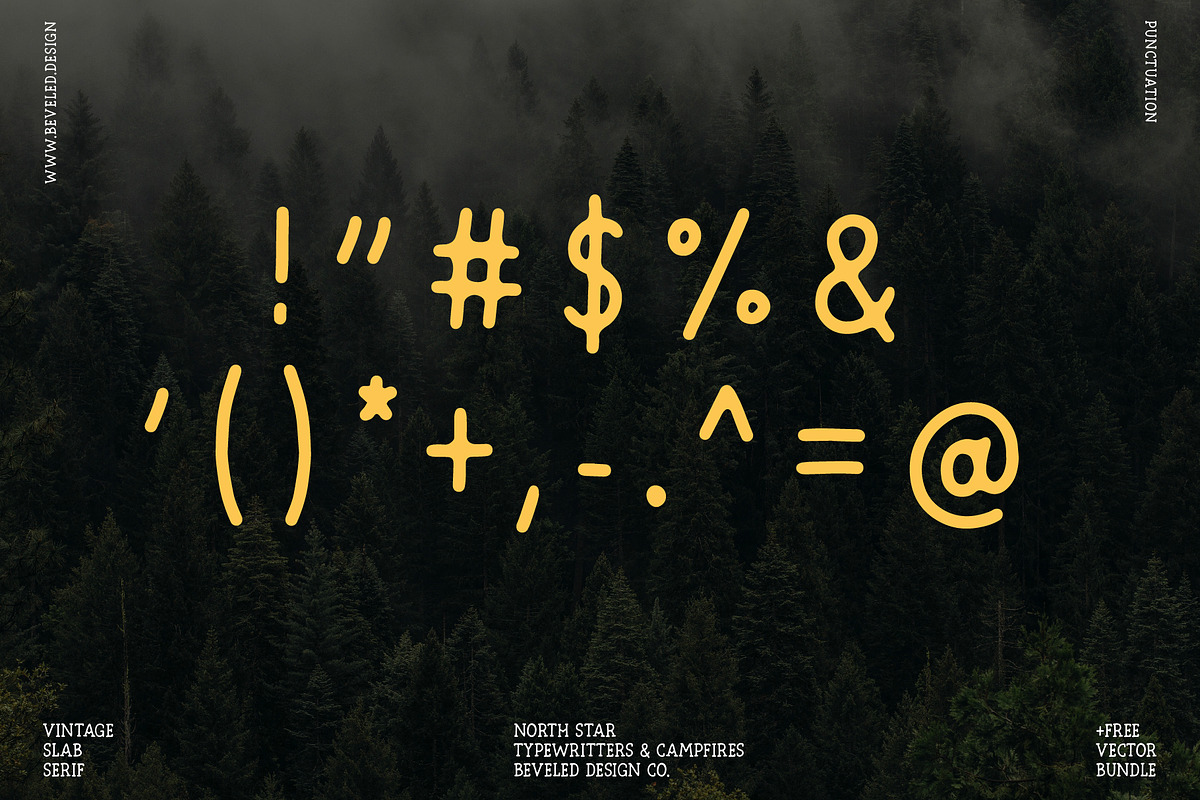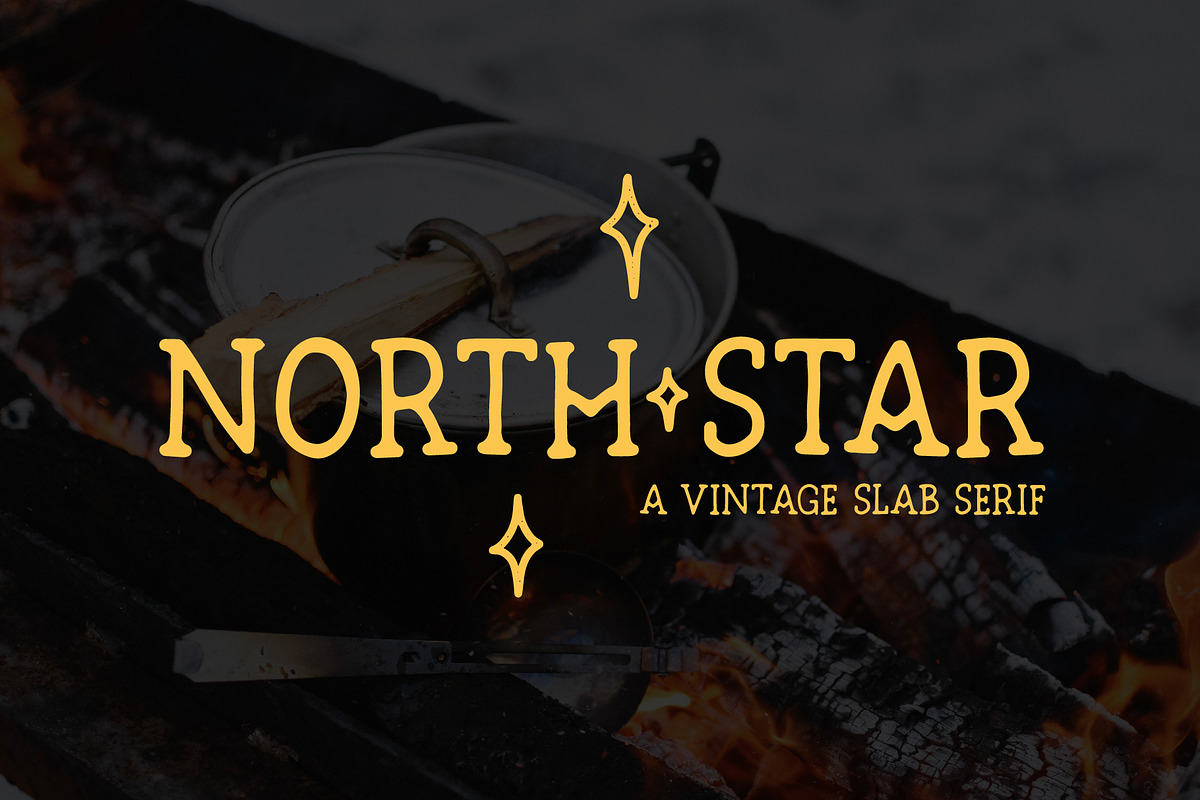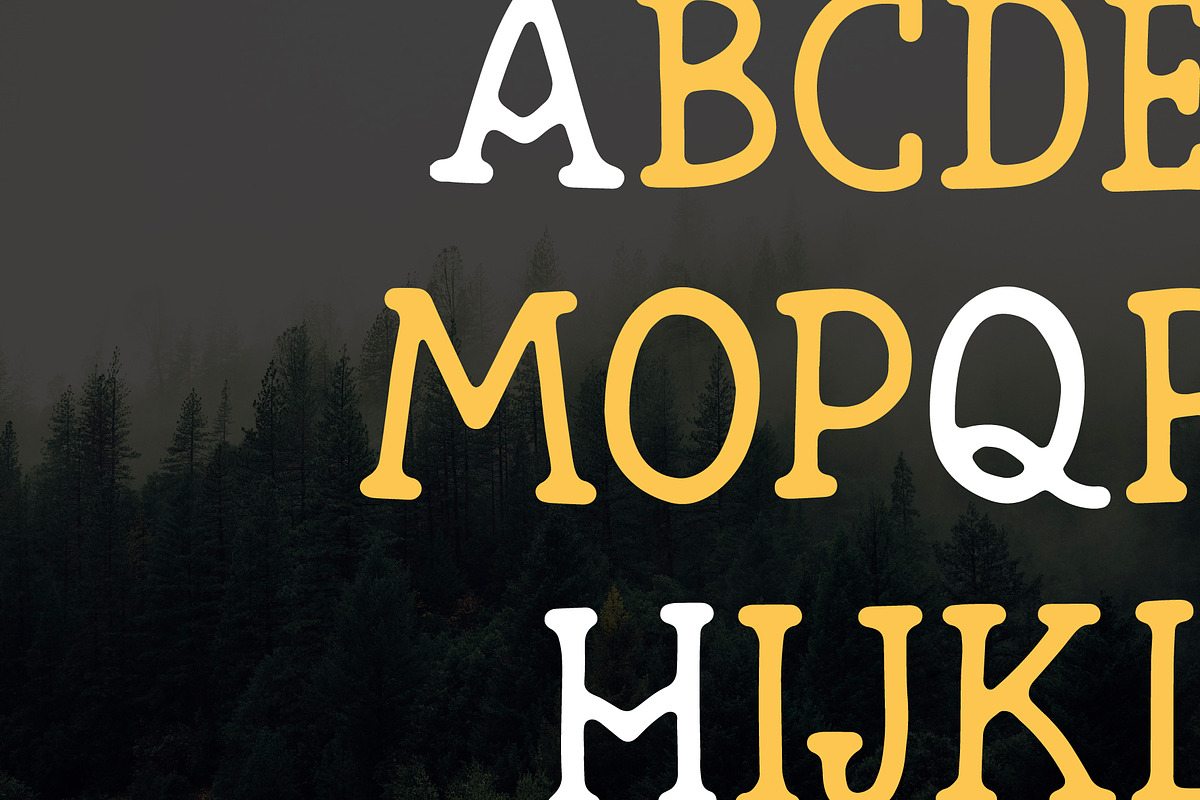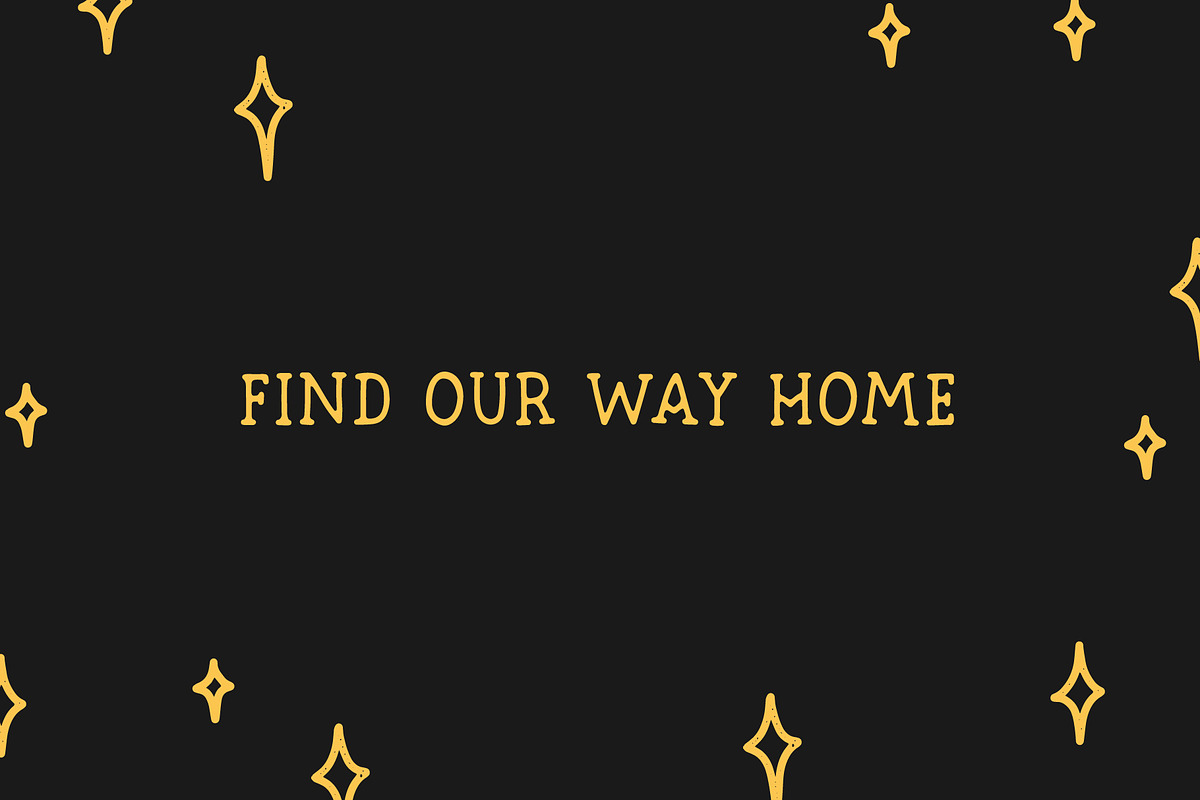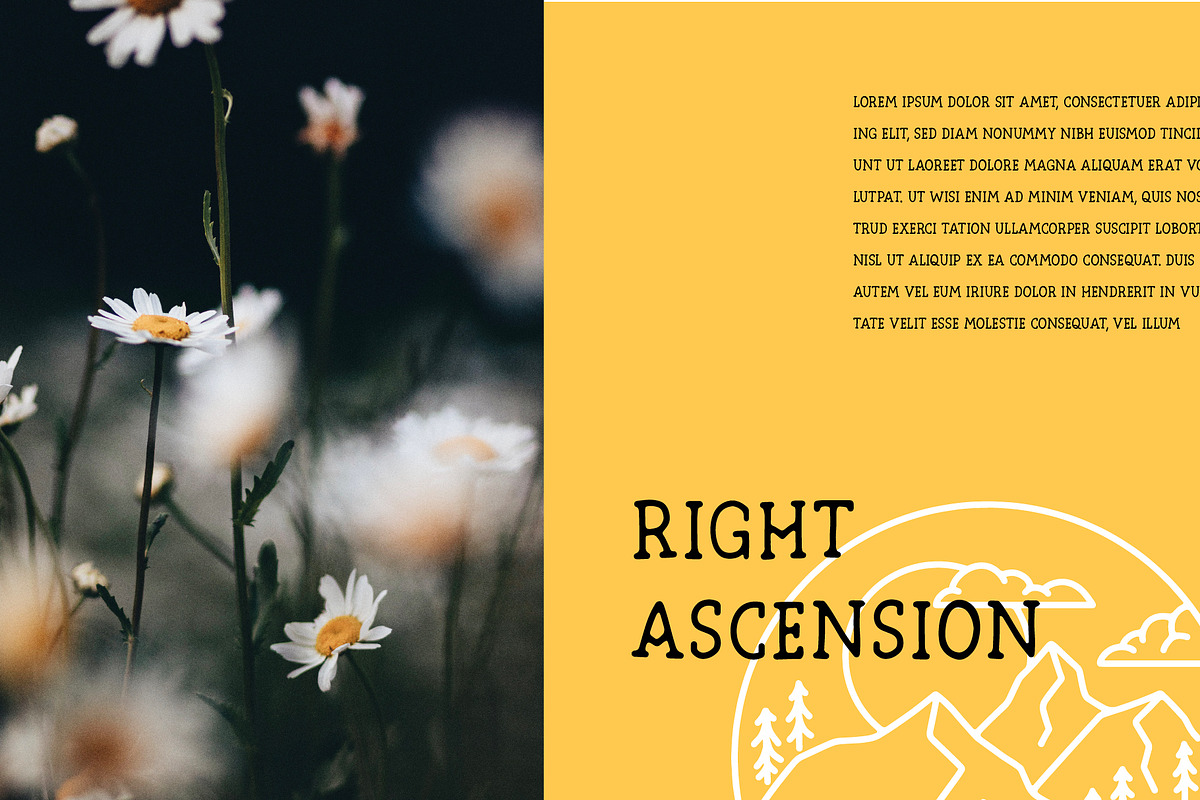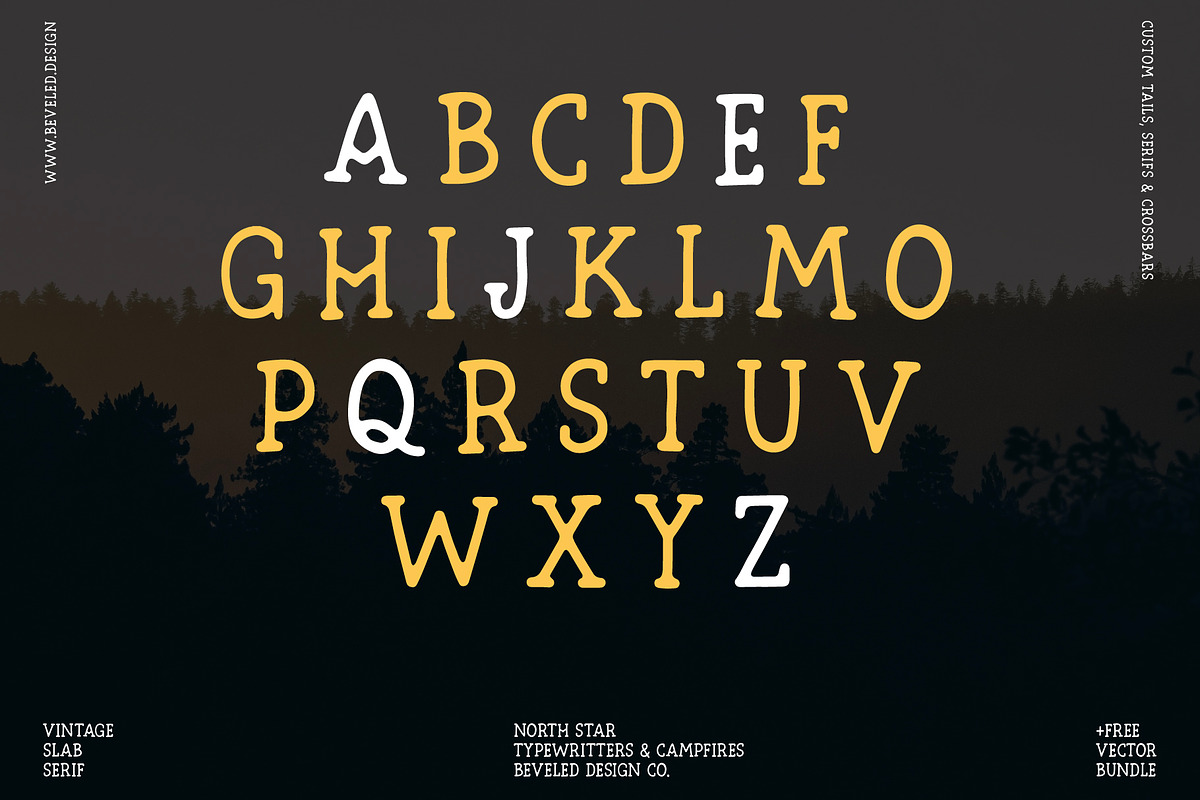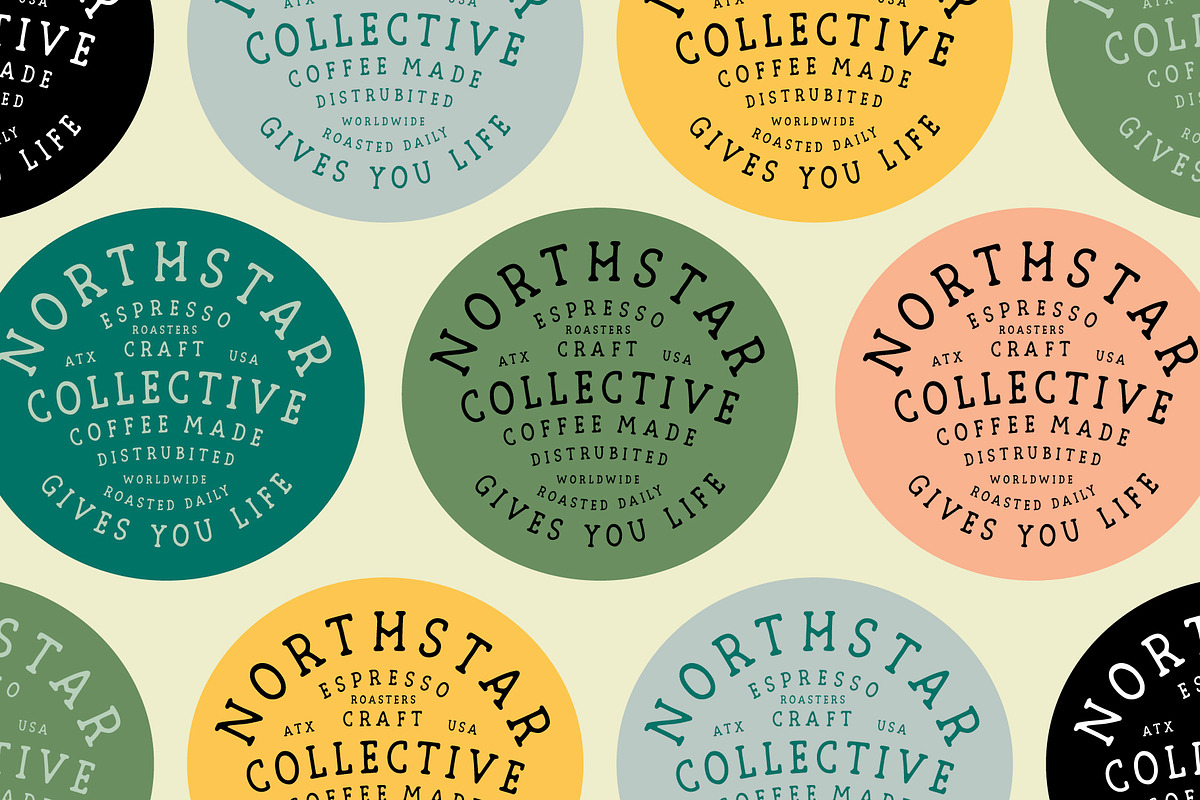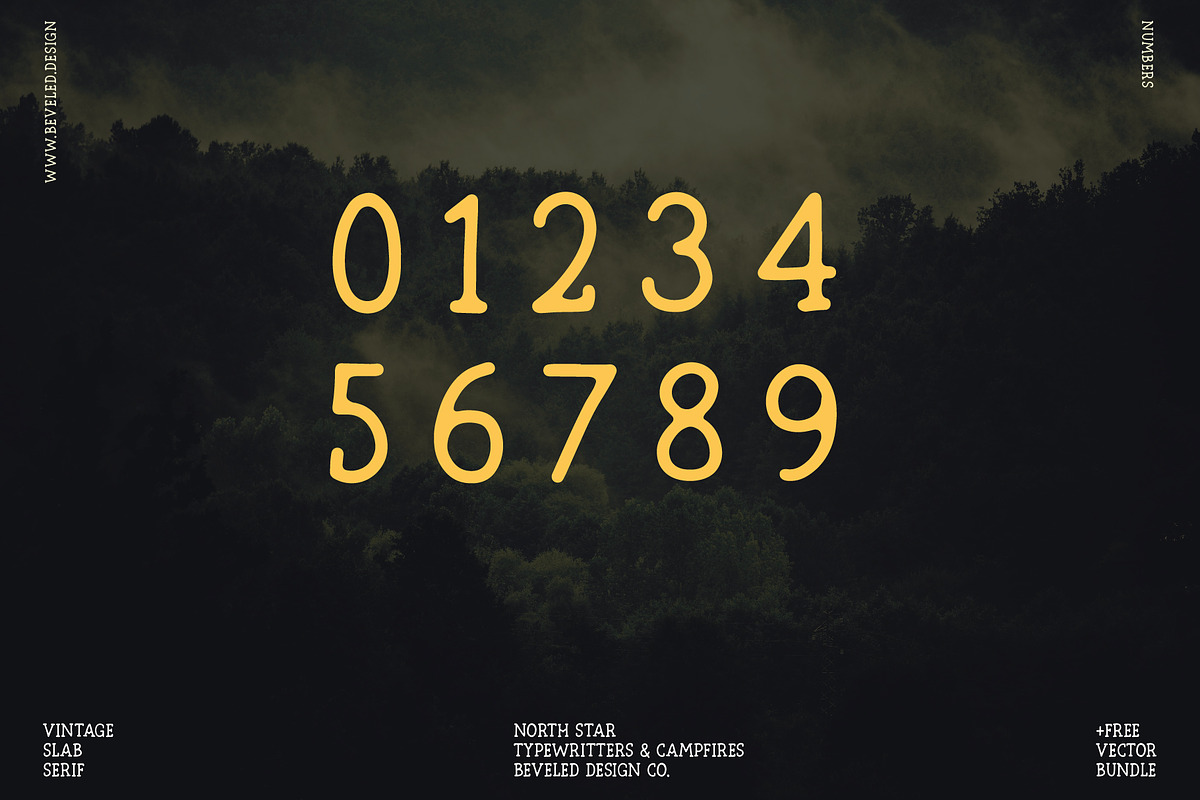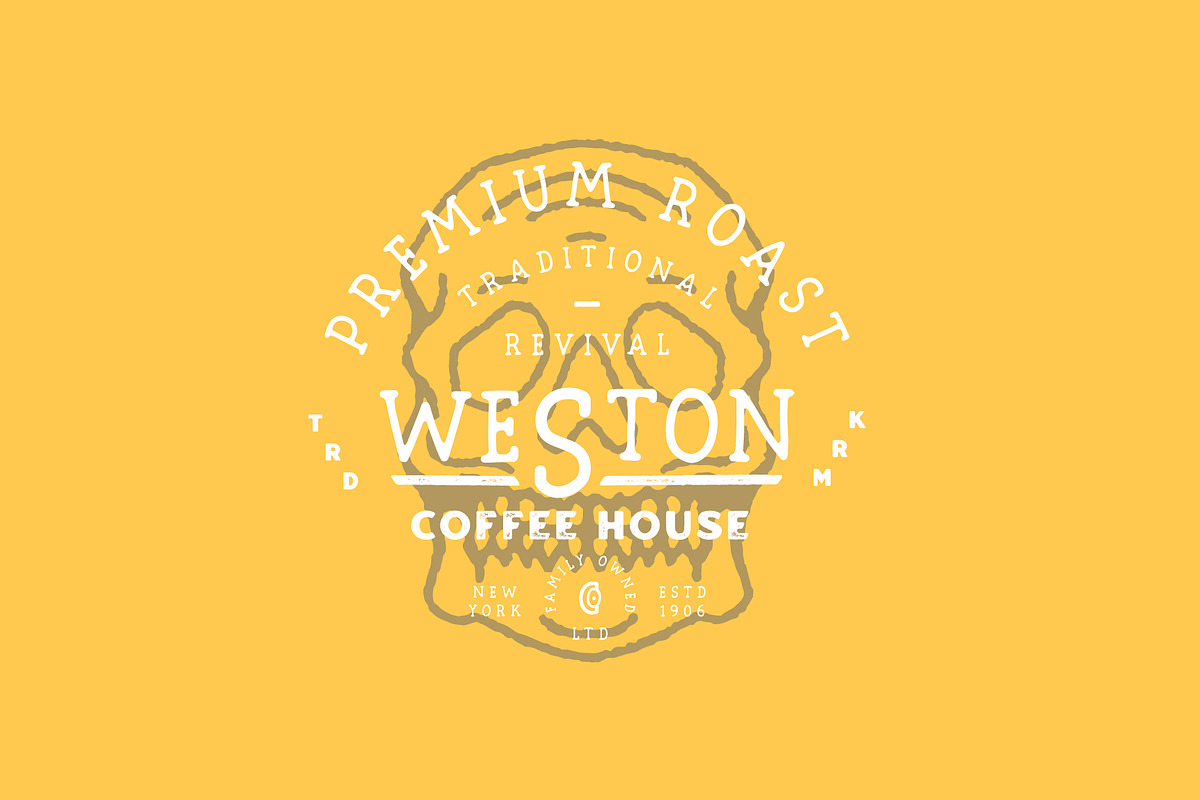
North Star | Vintage Slab Serif
Love using nostalgic hand made fonts? Check out our North Star Vintage Serif Font. A brand new hand lettered font perfect for creating logos, badges, apparel and much more.
- Custom tails, serifs and crossbars
- Perfect for logos, badges & branding projects.
- Hand made & rustic
This is a very unique font. The custom crossbars, serifs and tails make this font stand out on its own. Inspired by the aesthetic of a typewriter and the nostalgia of the outdoors. A contrast of monolithic lines and rough edges can be seen throughout this typeface.
- 16+ Additional Glyphs